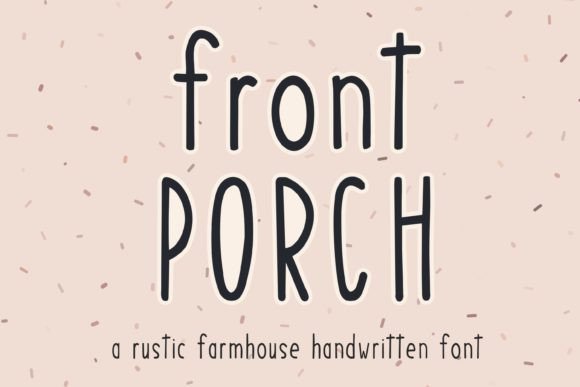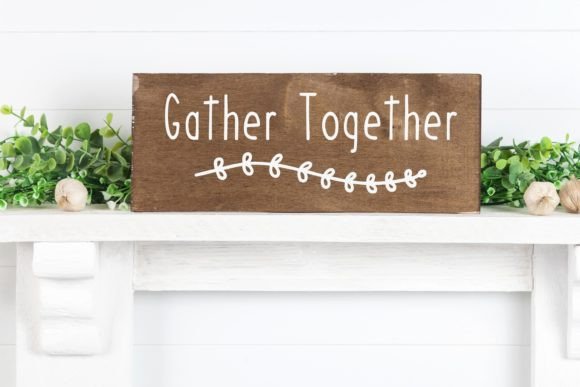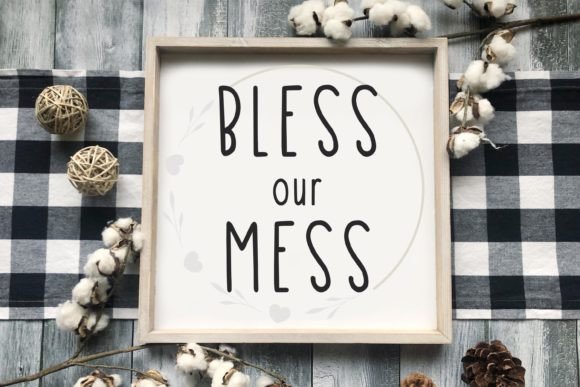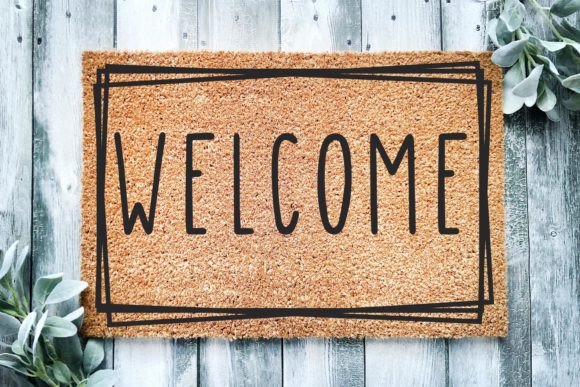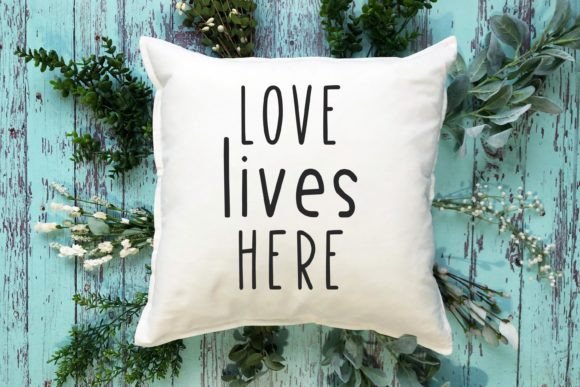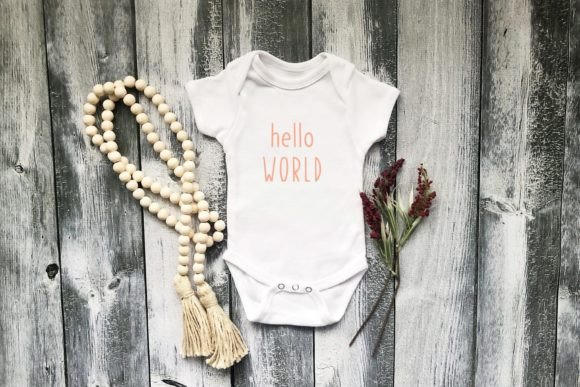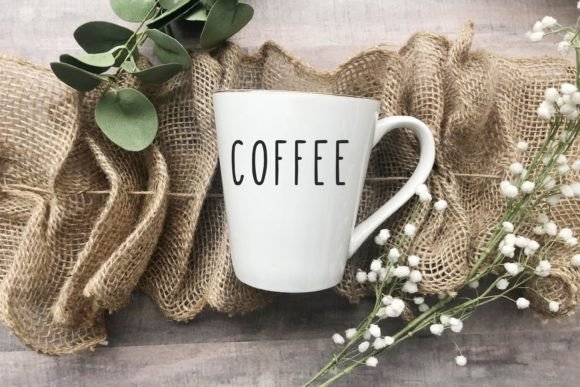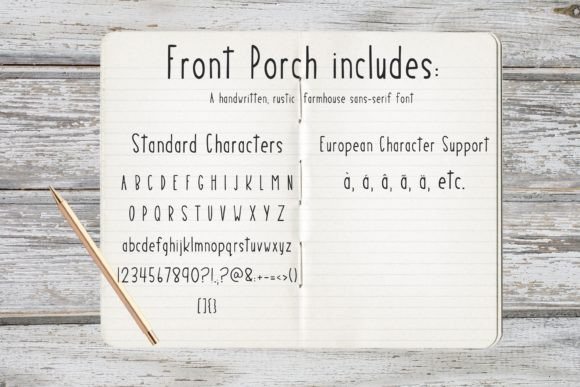
Front Porch Font
About Front Porch Font
Introducing Front Porch, a neat handwritten farmhouse-style font designed to bring a rustic touch to your creative projects. This font is perfect for various applications, including fun signs, logos, greeting cards, t-shirt designs, stickers, social media graphics, and any craft or project that benefits from a neat and rustic farmhouse aesthetic.
The charm of Front Porch lies in its neat handwritten farmhouse style, adding a touch of rustic simplicity to your designs. Whether used in digital designs or print materials, this font is crafted to enhance the overall visual appeal.
In fun signs and logos, Front Porch offers a unique and rustic option. Its handwritten farmhouse style brings a touch of warmth and authenticity to your brand identity, making it stand out with a friendly and down-to-earth vibe.
Greeting cards adorned with Front Porch carry a sense of simplicity and charm. The font’s neat farmhouse aesthetic adds an extra layer of authenticity to your messages, creating a welcoming and genuine experience.
For t-shirt designs, stickers, and social media graphics, Front Porch’s rustic and handwritten look enhances the overall visual impact. The font is crafted to make your creative projects stand out with a touch of farmhouse-style simplicity.
Front Porch is versatile and adaptable, making it suitable for a variety of design contexts where a neat and rustic farmhouse style is desired. Whether you’re working on digital designs or print materials, this font is designed to bring a touch of simplicity and authenticity to your creative projects.
In conclusion, Front Porch is a neat handwritten farmhouse-style font perfect for signs, logos, greeting cards, and more. Choose Front Porch to infuse your designs with a touch of rustic simplicity, creating visually appealing and authentic outcomes across a variety of creative applications.